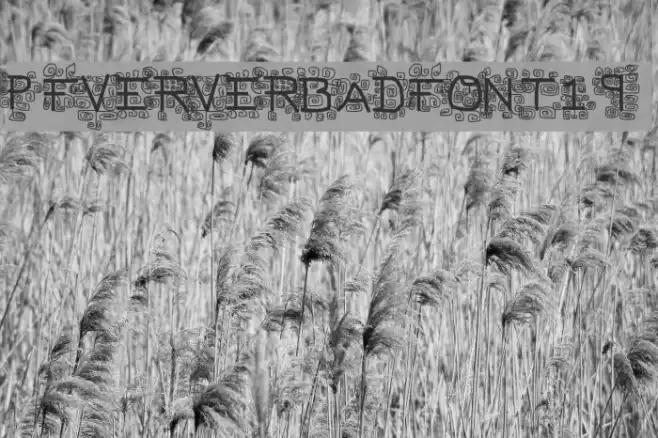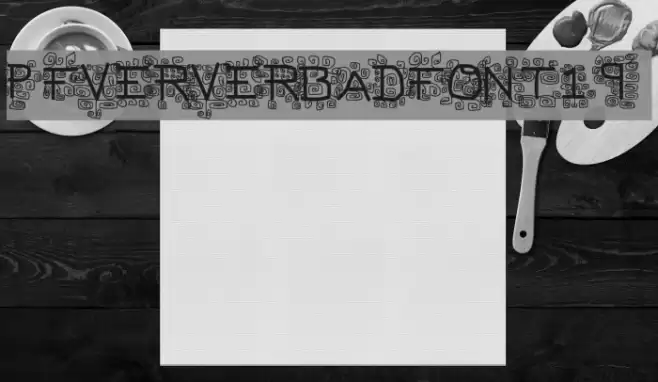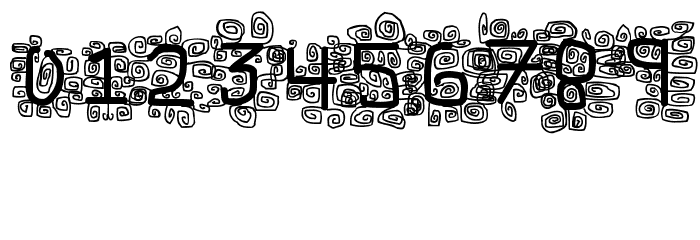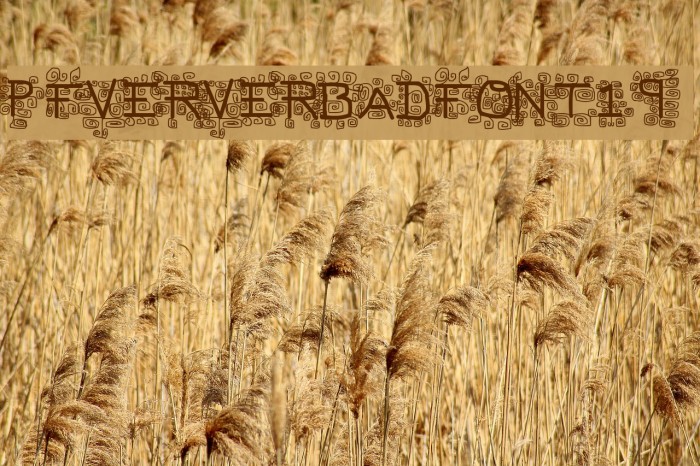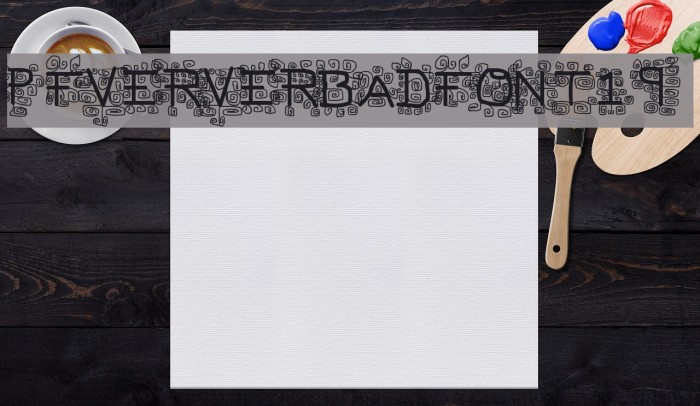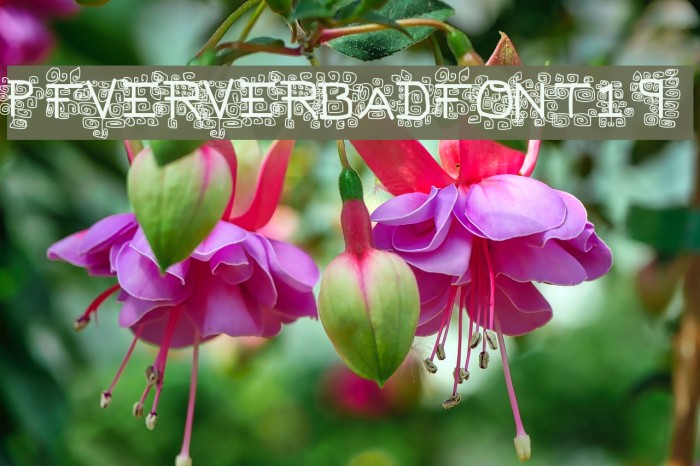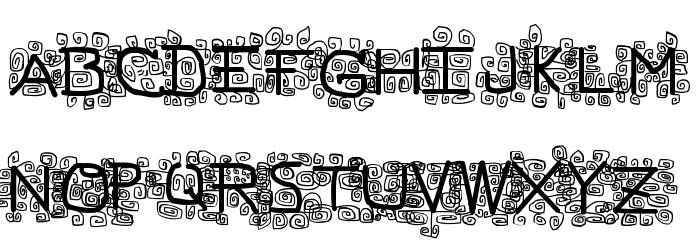
pf_veryverybadfont19 Font
pf_veryverybadfont19 Description
This font is a highly decorative and whimsical design featuring intricate swirls and curls surrounding each character. The letters are bold and heavily stylized, with a playful and artistic flair that makes them stand out. Each character is encased in a maze-like pattern, adding a sense of complexity and uniqueness. The font is not meant for readability but rather for artistic expression, making it suitable for creative projects where visual impact is more important than clarity. The overall appearance is chaotic yet captivating, drawing the eye with its elaborate details.
A decorative and whimsical font with intricate swirls and curls from Crazy fonts.
- Proposed Projects: Ideal for artistic posters, creative invitations, unique branding, or any project requiring a bold visual statement.
- Character Spacing: Wide
- Use Case: Logos, Posters, Artistic Projects